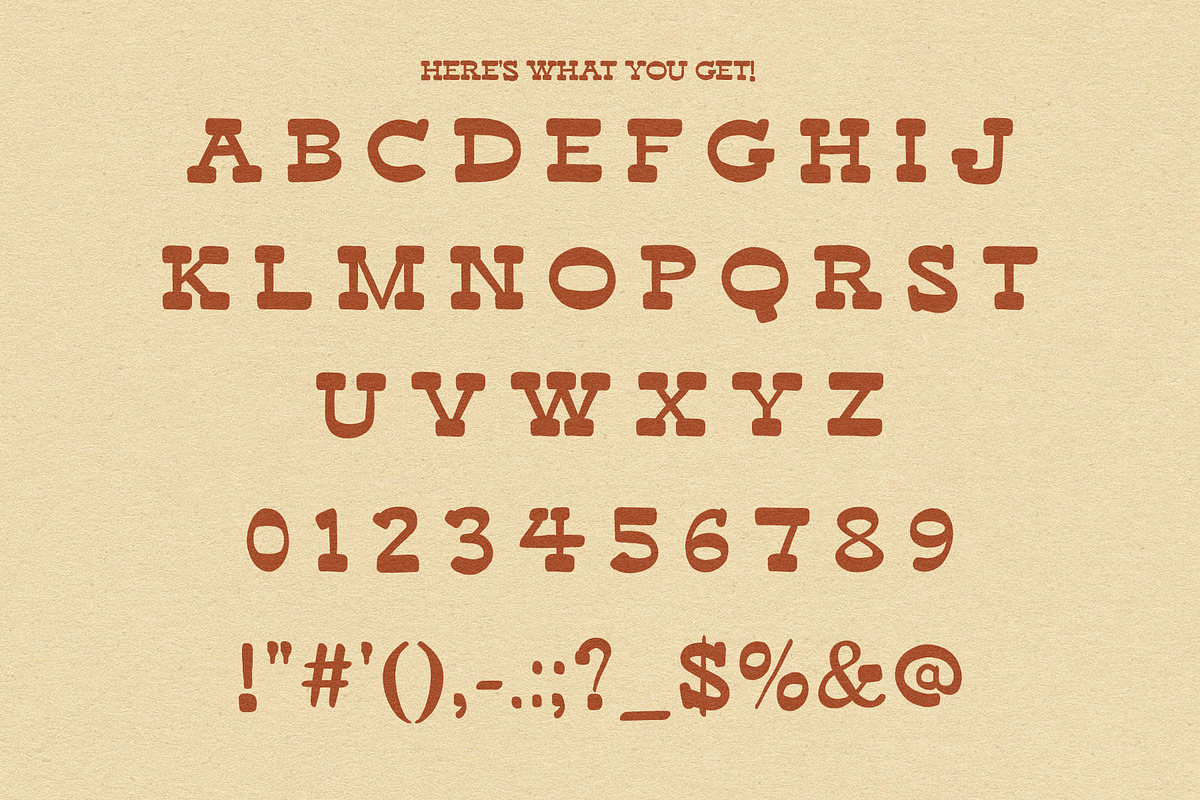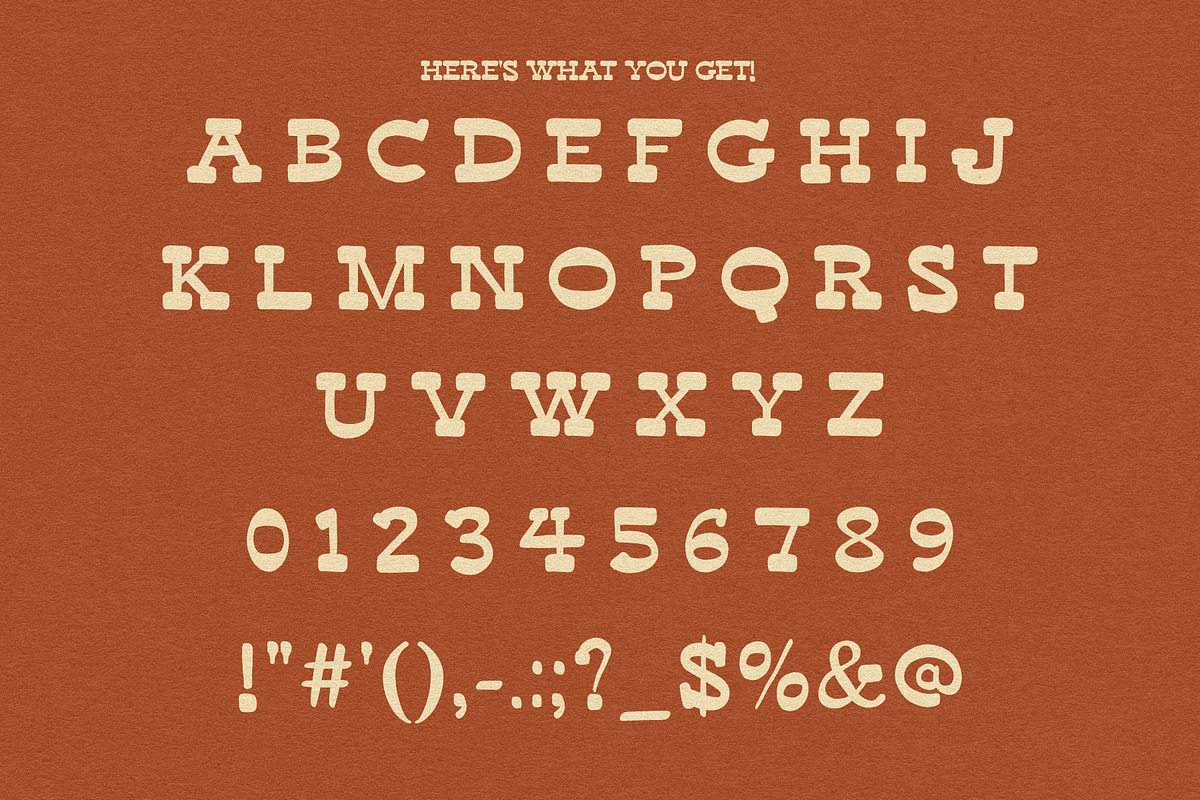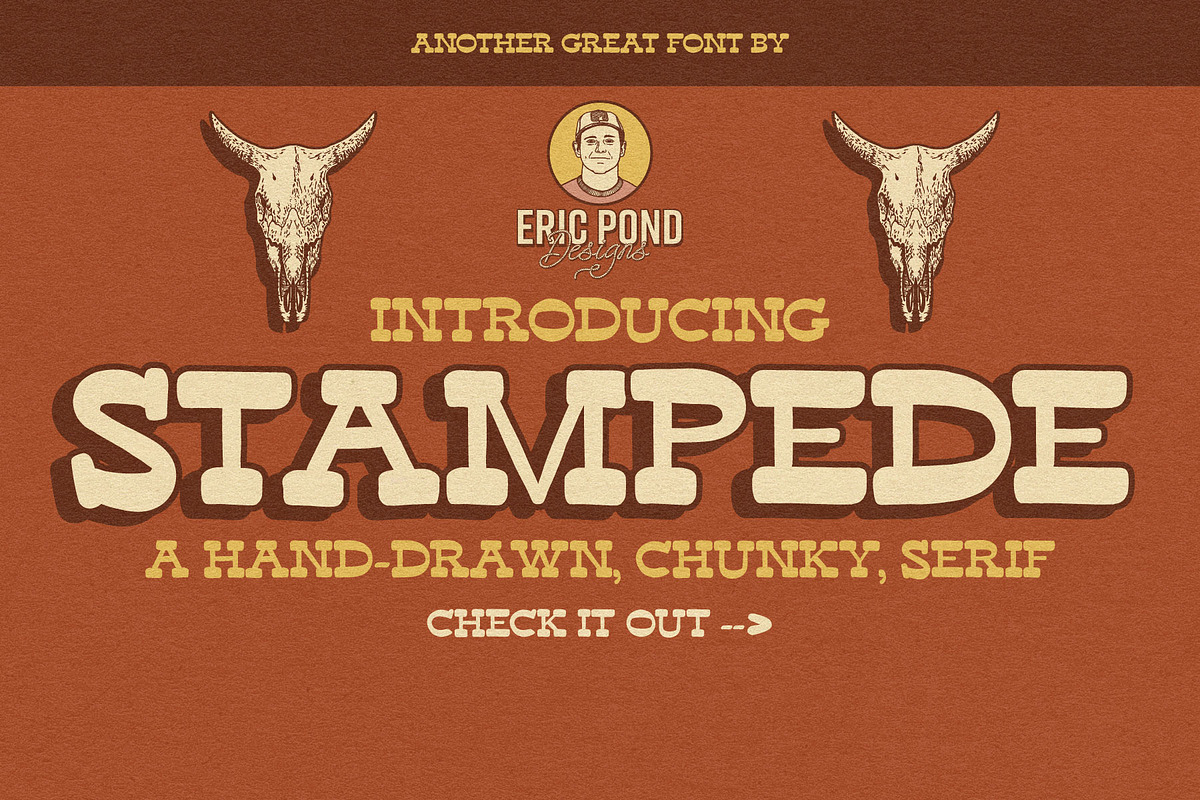
Stampede - Hand-drawn, Chunky Serif
Introducing Stampede! A Hand-drawn, Chunky Slab Serif font by Eric Pond Designs. This font features uppercase, numbers and some punctuation.